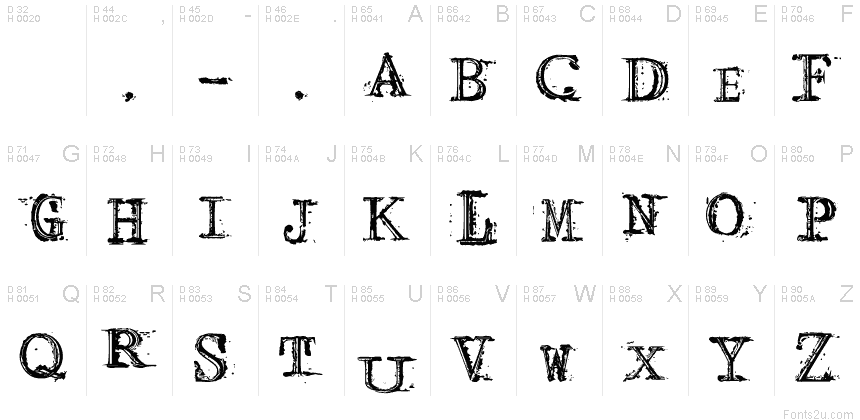
Arcade Fire
Arcade Fire font is a free eroded display typeface that looks like it’s been dragged through static, ash, and worn paper. Its tall, spindly letters crack with rough edges, ink splatters, and broken outlines that feel more like scratched metal than smooth typography. Up close, the texture is almost tactile, giving headlines a distressed, cinematic energy without losing legibility at larger sizes.
Using Arcade Fire, you can push horror posters, band logos, game titles, zines, haunted attraction branding, and edgy event flyers into full chaos mode. This free font shines when it’s big, loud, and given space to breathe, so keep it for titles and short phrases. For supporting text, pair Arcade Fire with a clean, neutral sans-serif to let its gritty personality take center stage.